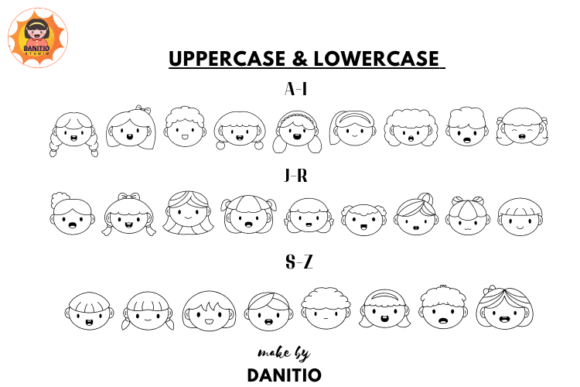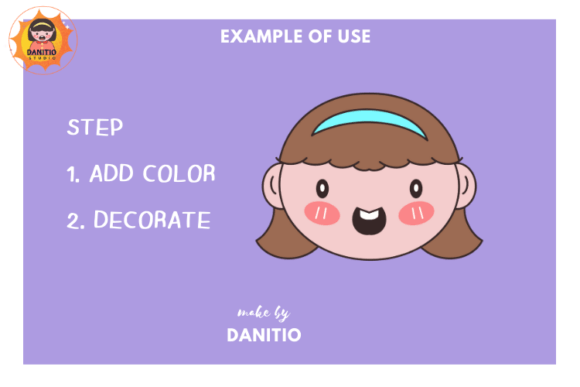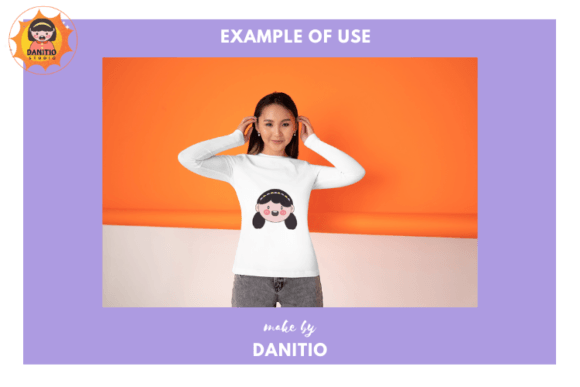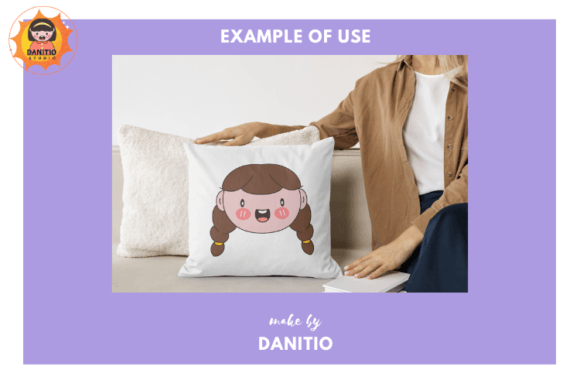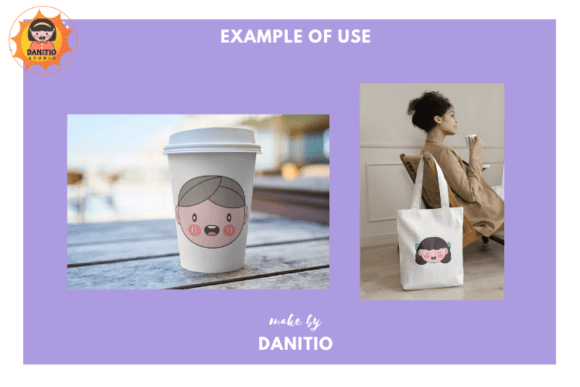
The Joy of Design: Introducing Cute Face Font
Remember that moment when you stumbled upon a font that made you squeal with delight? For me, it was when I discovered Cute Face Font – a charming Dingbats font that brings a smile to your face. Its adorable illustrations of children in various styles are sure to captivate your audience and add a touch of whimsy to your designs.
This sweet font is perfect for designers who want to create fun and quirky designs that appeal to kids and kids-at-heart. Whether you’re working on worksheets, invitations, inserts, packaging, or branding projects, Cute Face Font is a valuable addition to your design toolkit. Its friendly atmosphere is sure to convey your message in a way that’s both engaging and memorable.
- Unique Characteristics: Features a playful, childlike aesthetic with rounded edges and a soft, cursive feel, making it perfect for creating a whimsical and friendly tone in designs.
Cute Face Font Review
Overall, I think Cute Face Font is a sweet addition to any designer’s toolkit. It’s a fun, playful font that’s perfect for capturing a lighthearted, youthful vibe in your designs.
- ✨ Unique Character: Cute Face Font’s character is its strongest point. The quirky design elements and expressive features will instantly grab the viewer’s attention.
- ✨ Versatility: It’s suitable for various applications, including titles, headings, and body text, making it a great all-around font choice.
- ✨ Friendly and Approachable: The font’s playful nature makes it perfect for projects that require a more casual, approachable tone.
- ⚠️ Limited Legibility: In certain situations, the font’s playful design can compromise its legibility. It’s essential to use it wisely and balance it with other elements.
- ⚠️ Not Suitable for Formal Text: Cute Face Font is best used for informal projects or where a more casual tone is required. For formal text, it may not be the best choice.
Cute Face Font is a great addition to any designer’s toolkit, offering a fun and unique character that’s perfect for capturing a youthful, playful vibe. While it may not be suitable for all projects, it’s a great choice for those looking to add some personality to their designs.